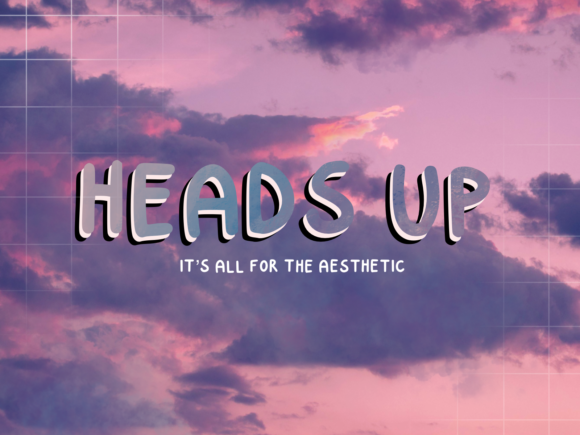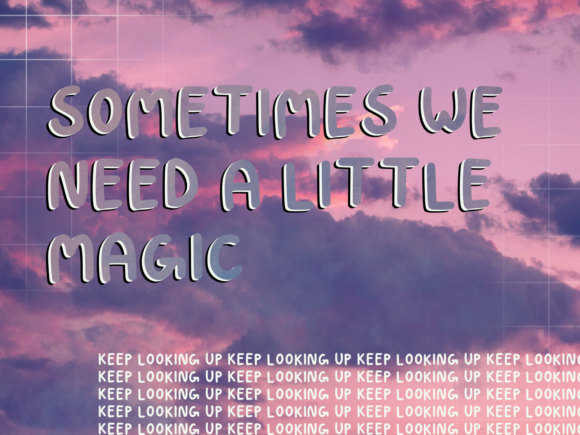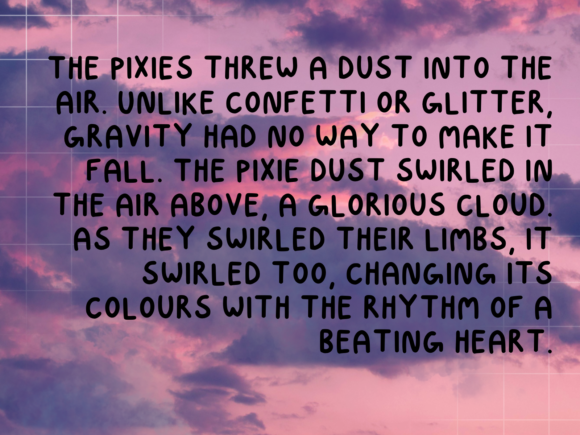
Have you ever found yourself staring at a blank page, struggling to come up with the perfect design for your next project? You know, that moment when everything seems to be falling into place, and you just need the right font to tie it all together? That’s exactly when I fell in love with the Heads Up Font. This bold, all caps display font is the perfect addition to any creative project, adding a touch of trendiness and sophistication that’s sure to impress.
As a designer, I know how important it is to have the right tools at your disposal. That’s why I’m excited to share the Heads Up Font with you. Whether you’re working on a digital design, crafting, or creating greeting cards, this font is sure to be a game-changer. Its versatility and style make it a valuable addition to any designer’s toolkit, and I’m confident you’ll love it just as much as I do!
Heads Up Font Key Features
- Font Family: Heads Up Font is a sans-serif font family designed for clear and readable text.
- Unique Characteristics: Designed with a modern and clean aesthetic, Heads Up Font features a high x-height and open counters for improved readability.
Heads Up Font Review
Heads Up Font is a sans-serif typeface designed to convey a sense of friendliness and approachability. ✨ I appreciate how the font effectively conveys a casual, yet professional tone, making it suitable for various applications such as websites, social media, and even signage.
One of the standout features of Heads Up Font is its legibility, even at smaller font sizes. ✨ The clear and clean design ensures that the text remains easy to read, reducing the likelihood of eye strain or confusion.
What Doesn’t Quite Work
- ⚠️ The font may feel a bit too generic for some users, lacking a distinct personality or character that sets it apart from other sans-serif fonts.
- ⚠️ While Heads Up Font is highly legible, it may not be the best choice for situations where a more dramatic or attention-grabbing font is required.
Overall, I think Heads Up Font is a solid choice for designers looking for a friendly and approachable sans-serif typeface. While it may not be the most exciting or unique option, it effectively gets the job done and can be a reliable choice for a wide range of projects.
Heads Up Font is commonly used for:
– Headlines and titles.
– Captions and subtitles.
– Branding and logos.
Tips for Getting the Most Out of Heads Up Font
For optimal results, use Heads Up Font in combination with other bold and playful fonts.
Use Heads Up Font consistently across all marketing materials to build brand recognition.
Alternatives to “Heads Up Font” for Designers
Open Sans is a clean, modern sans-serif font that is highly legible and versatile. It is ideal for digital design, particularly for web and mobile applications. Open Sans is a great alternative to Heads Up Font because it offers a similar clean and modern feel, but with a more neutral tone and a wider range of font weights.
Montserrat is a geometric sans-serif font that is inspired by the urban environment of Buenos Aires. It is highly legible and versatile, making it suitable for a wide range of design applications. Montserrat is similar to Heads Up Font in its modern and sleek feel, but it has a more industrial and edgy tone.
Lato is a modern sans-serif font that is highly legible and versatile. It is designed to work well in a wide range of font sizes and styles, making it suitable for digital design, particularly for web and mobile applications. Lato is a great alternative to Heads Up Font because it offers a similar clean and modern feel, but with a more elegant and sophisticated tone.
Heads Up Font includes a comprehensive character set that covers Latin, Cyrillic, and Greek alphabets, as well as various punctuation marks and symbols. The font also includes support for ligatures, fractions, and other advanced typographic features.